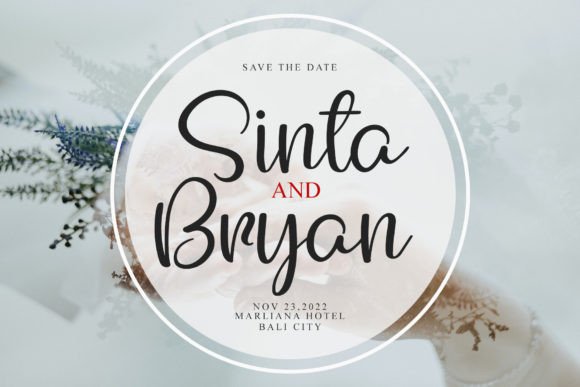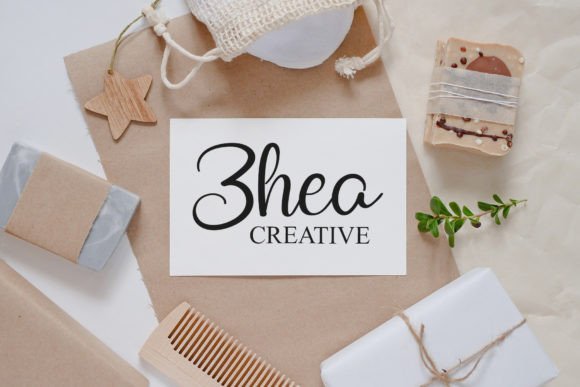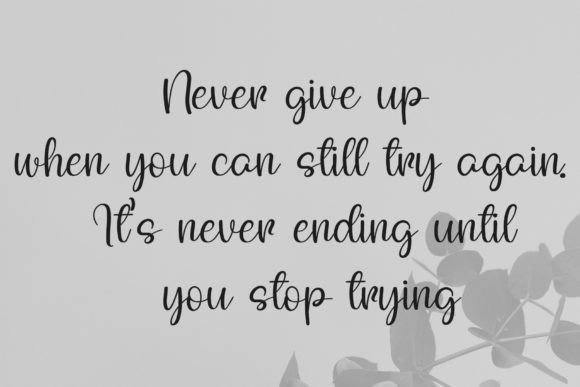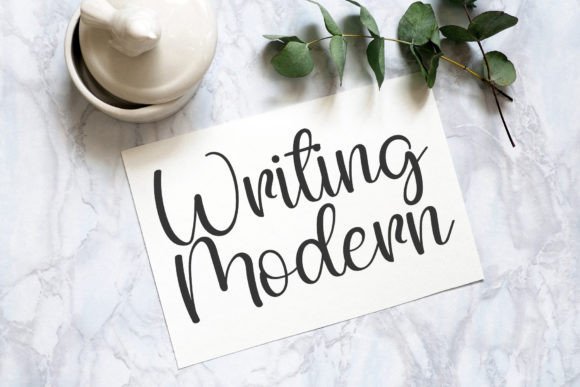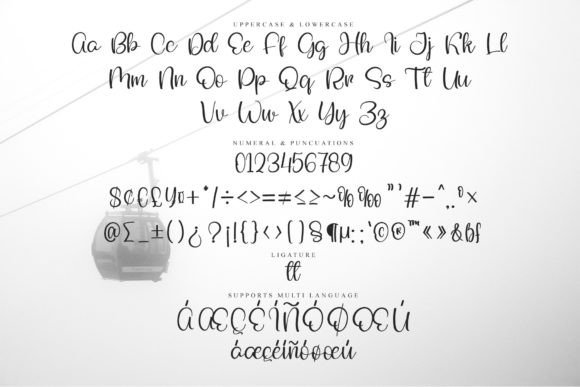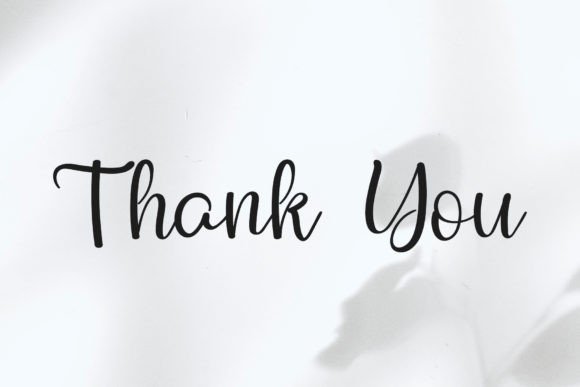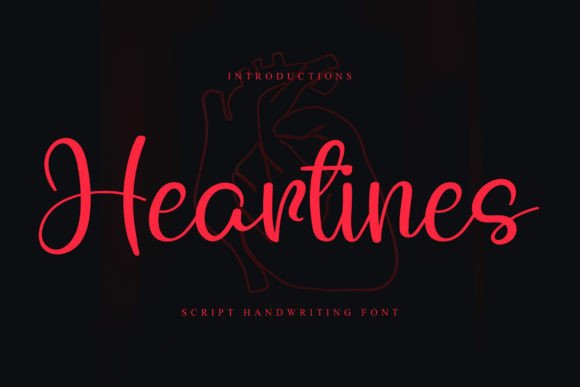
Introducing Heartines Font: The Sweet and Cursive Handwritten Font for Your Design Needs
Are you looking for a font that can add a touch of sweetness and romance to your design projects? Look no further than Heartines Font! This beautiful, cursive handwritten font is perfect for a variety of design ideas, from branding and logos to wedding invites and greeting cards. In this article, we’ll take a closer look at Heartines Font and explore its features, benefits, and uses.
What is Heartines Font?
Heartines Font is a sweet and cursive handwritten font that is designed to add a joyful and romantic touch to your design projects. Its gentle and flowing curves make it perfect for creating beautiful and elegant designs that will capture the hearts of your audience. Whether you’re a designer, crafty DIY enthusiast, or small business owner, Heartines Font is a great addition to your font collection.
Features of Heartines Font
So, what makes Heartines Font so special? Here are some of its key features:
- Sweet and Cursive Design: Heartines Font has a beautiful, cursive handwritten design that is both sweet and elegant.
- Handwritten Style: The font has a genuine handwritten look that will add a personal touch to your designs.
- Versatile: Heartines Font can be used for a variety of design projects, from branding and logos to wedding invites and greeting cards.
- Elegant and Refined: The font’s gentle curves and flowing lines make it perfect for creating elegant and refined designs.
Benefits of Using Heartines Font
So, why should you use Heartines Font for your design projects? Here are some of its benefits:
- Adds a Touch of Romance: Heartines Font is perfect for creating designs that require a touch of romance and sweetness.
- Perfect for Wedding and Love-Related Designs: The font’s elegant and refined design makes it perfect for wedding invites, greeting cards, and other love-related designs.
- Great for Branding and Logos: Heartines Font can be used to create beautiful and elegant logos and branding materials that will set your business apart.
- Easy to Read: The font is clear and easy to read, making it perfect for body text and other written content.
Uses of Heartines Font
So, what can you use Heartines Font for? Here are some ideas:
- Wedding Invites: Use Heartines Font to create beautiful and elegant wedding invites that will set the tone for your special day.
- Greeting Cards: The font is perfect for creating greeting cards for special occasions, such as Valentine’s Day, Mother’s Day, and Christmas.
- Branding and Logos: Use Heartines Font to create beautiful and elegant logos and branding materials that will set your business apart.
- Social Media Graphics: The font can be used to create beautiful and engaging social media graphics that will capture the hearts of your audience.
Tips for Using Heartines Font
Here are some tips for using Heartines Font:
- Use it for Headings and Titles: Heartines Font is perfect for headings and titles, where its elegant and refined design can shine.
- Pair it with Other Fonts: The font can be paired with other fonts to create a unique and interesting design.
- Experiment with Colors: Heartines Font looks great in a variety of colors, so don’t be afraid to experiment and find the perfect color for your design.
In conclusion, Heartines Font is a beautiful and elegant cursive handwritten font that is perfect for a variety of design projects. Its sweet and romantic design makes it perfect for wedding invites, greeting cards, and other love-related designs. With its versatility, elegance, and refined design, Heartines Font is a great addition to any font collection. So, why not give it a try and see how it can elevate your designs?